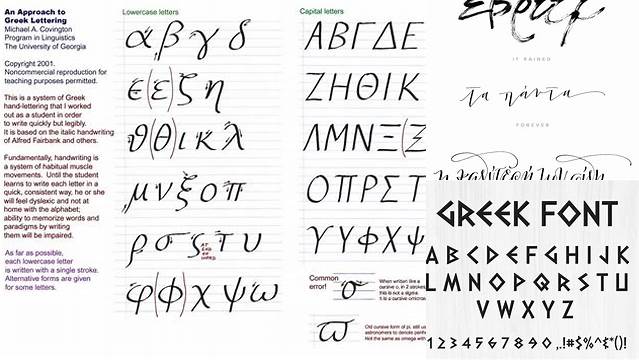
Free Greek Handwriting Fonts: Your Ultimate Guide
Hey guys! Are you on the hunt for some amazing free Greek handwriting fonts? You've come to the right place! Whether you're a designer, a student, or just someone who loves the beauty of Greek script, finding the perfect font can be a game-changer. In this comprehensive guide, we'll dive deep into the world of free Greek handwriting fonts, exploring everything from where to find them to how to use them effectively. So, grab a coffee, get comfy, and let's get started!
1. Understanding Greek Handwriting Fonts
Before we jump into the specifics, let's take a moment to understand what makes Greek handwriting fonts so special. These fonts aim to replicate the natural flow and unique character of handwritten Greek, adding a personal and authentic touch to your projects. Using Greek handwriting fonts can instantly elevate your designs, making them appear more inviting and relatable. This is especially useful for projects that require a human touch, such as invitations, posters, and branding materials. Remember, the key is to choose a font that not only looks good but also fits the overall tone and message of your project.
2. Why Choose Free Greek Handwriting Fonts?
Okay, let's be real – free stuff is awesome! But beyond the price tag, there are many reasons to opt for free Greek handwriting fonts. Many talented designers generously offer their creations for free, allowing you to access high-quality fonts without breaking the bank. This is fantastic news, especially if you're on a tight budget or just starting out. Plus, the variety of free fonts available is truly impressive. You can find everything from elegant and formal scripts to playful and casual styles, ensuring there's something for every project. Just remember to always check the license to make sure the font can be used for your intended purpose, whether it's for personal or commercial use.
4. Best Free Greek Handwriting Fonts for 2024
Now for the fun part! Let's dive into some specific fonts that are totally rocking the free Greek handwriting font scene in 2024. I've scoured the internet and handpicked a few standouts that I think you'll love. We'll explore fonts that range from elegant and formal to casual and quirky, so you can find the perfect fit for your project. Each font has its own unique personality and flair, so get ready to be inspired!
7. Installing Greek Fonts on macOS
Installing fonts on macOS is just as straightforward as on Windows. Simply double-click the font file, and Font Book will open. Click the "Install Font" button, and the font will be installed and ready to use. Another method is to drag the font file into the "Fonts" folder in your Library. To access the Library folder, you may need to hold down the Option key while clicking the "Go" menu in Finder.
8. Using Greek Fonts in Microsoft Word
Using your new Greek handwriting font in Microsoft Word is super simple. Open Word, select the text you want to format, and then choose your font from the font dropdown menu. If you don't see the Greek characters, make sure you have the Greek keyboard layout enabled in your operating system settings. You can usually add a new keyboard layout in the "Language" or "Keyboard" settings of your computer.
9. Using Greek Fonts in Adobe Photoshop
For all you design wizards out there, using Greek fonts in Adobe Photoshop is a must-know skill. Select the Type tool, click on your canvas, and start typing. Then, select the text and choose your Greek font from the font dropdown menu. Photoshop also allows you to adjust the font size, spacing, and other attributes to get the perfect look for your design.
10. Tips for Pairing Greek Fonts with Other Fonts
Font pairing is an art, guys! Combining Greek handwriting fonts with other fonts can create a visually stunning effect, but it's important to do it right. A good rule of thumb is to pair a handwriting font with a simpler, more legible font for body text. This ensures that your design is both beautiful and easy to read. Consider pairing a bold Greek handwriting font with a clean sans-serif font or an elegant serif font. Experiment with different combinations to find what works best for your project.
11. Common Mistakes When Using Greek Handwriting Fonts
We all make mistakes, but knowing the common pitfalls can help you avoid them. One common mistake is using too many handwriting fonts in a single design. This can create a cluttered and confusing look. Another mistake is using a font that is too difficult to read. Remember, readability is key, especially for body text. Also, make sure the font you choose fits the overall tone and message of your project.
12. The History of Greek Script
Let's take a quick historical detour, shall we? Understanding the history of Greek script can give you a deeper appreciation for these fonts. The Greek alphabet is one of the oldest alphabets still in use today, with its roots tracing back to ancient Phoenician script. Over centuries, the Greek alphabet evolved into the forms we recognize today. Knowing this rich history can add depth and authenticity to your designs.
13. Different Styles of Greek Handwriting
Just like English handwriting, Greek handwriting comes in various styles. You'll find everything from formal calligraphic styles to casual and messy scripts. Understanding these different styles can help you choose the perfect font for your project. For instance, a formal script might be ideal for wedding invitations, while a casual script could be perfect for a blog header.
14. How to Create Your Own Greek Handwriting Font
Feeling ambitious? Creating your own Greek handwriting font can be a super rewarding project. You'll need specialized font creation software, such as FontLab Studio or Glyphs. The process involves drawing each letter, number, and symbol, and then encoding them into a font file. It's a time-consuming process, but the result is a unique and personalized font that is all your own.
15. The Importance of Readability in Handwriting Fonts
I can't stress this enough: readability is crucial! Even the most beautiful handwriting font is useless if it's too difficult to read. When choosing a font, make sure the letters are clear and distinct, and the spacing is adequate. Test the font in different sizes and contexts to ensure it's legible. After all, the goal is to communicate your message effectively.
16. Using Greek Handwriting Fonts for Logos
Greek handwriting fonts can add a touch of elegance and personality to your logos. However, logo design requires careful consideration. Choose a font that is not only visually appealing but also scalable and legible in various sizes. A bold and distinctive handwriting font can make your logo stand out, but make sure it aligns with your brand identity.
17. Greek Handwriting Fonts for Social Media Graphics
Social media is a visual medium, so choosing the right fonts is essential for creating eye-catching graphics. Greek handwriting fonts can add a unique flair to your social media posts and stories. Use them for headlines, captions, or even as design elements in your graphics. Just remember to maintain consistency and use fonts that are easy to read on small screens.
18. Best Practices for Using Greek Fonts in Web Design
When using Greek fonts in web design, consider factors such as page load speed and cross-browser compatibility. Web fonts can sometimes slow down your site if they are not optimized properly. Use a font format like WOFF or WOFF2 for better performance. Also, ensure that your chosen font renders correctly in different browsers and devices.
19. Exploring Calligraphy-Inspired Greek Fonts
Calligraphy-inspired Greek fonts can add a touch of sophistication and elegance to your designs. These fonts often feature flowing strokes and ornate details, making them ideal for formal invitations, certificates, and other special occasions. Look for fonts that mimic the look of traditional Greek calligraphy for an authentic touch.
20. Casual and Playful Greek Handwriting Fonts
If you're looking for something more relaxed and fun, casual Greek handwriting fonts are the way to go. These fonts often have a more informal and handwritten feel, making them perfect for blog headers, social media graphics, and other projects where you want to convey a friendly and approachable vibe. Choose fonts with rounded letterforms and a natural, uneven stroke.
21. Using Greek Fonts to Add Authenticity to Historical Projects
If you're working on a historical project, using Greek fonts can add a layer of authenticity and credibility. Choose fonts that accurately reflect the time period and style you are trying to represent. Research the historical context of Greek handwriting and select fonts that align with that period.
22. The Psychology of Fonts: Choosing the Right Mood
Fonts have a powerful psychological impact, guys. They can evoke different emotions and create different moods. When choosing a Greek handwriting font, consider the message you want to convey and the emotions you want to evoke. A formal script might convey elegance and sophistication, while a casual script might convey friendliness and warmth.
23. How to Test Your Greek Font for Legibility
Testing your font for legibility is a crucial step in the design process. Print out a sample of your text in different sizes and contexts. Ask others to read it and provide feedback. Pay attention to letter spacing, kerning, and overall readability. Make adjustments as needed to ensure your font is easy to read.
24. Advanced Tips for Font Customization
Want to take your font game to the next level? Advanced font customization techniques can help you create a truly unique and personalized look. Experiment with different weights, styles, and effects. Use software like FontLab Studio or Glyphs to adjust the letterforms and create custom variations of your chosen font.
25. Resources for Learning More About Typography
If you're serious about typography, there are tons of amazing resources out there to help you learn more. Books, online courses, and workshops can provide you with in-depth knowledge about font design, usage, and history. Websites like Typewolf and I Love Typography are also great sources of inspiration and information.
26. The Future of Greek Handwriting Fonts
The world of fonts is constantly evolving, and Greek handwriting fonts are no exception. As technology advances, we can expect to see even more innovative and creative font designs. AI and machine learning may play a role in font creation in the future, allowing for more personalized and dynamic font experiences. The possibilities are endless!
27. Maintaining Consistency with Greek Fonts Across Platforms
Ensuring consistency with Greek fonts across different platforms and devices can be a challenge. Different operating systems and browsers may render fonts differently. Use web fonts for online projects to ensure consistent rendering. Test your designs on various devices to identify and address any issues.
28. The Impact of Culture on Font Design
Culture plays a significant role in font design, guys. Greek fonts reflect the rich history and cultural heritage of Greece. Understanding the cultural context of a font can help you use it more effectively. Consider the cultural implications of your font choice when designing for international audiences.
29. How to Stay Updated on New Font Releases
Want to stay in the loop about the latest font releases? Subscribe to font newsletters, follow font foundries on social media, and check font blogs regularly. This will help you discover new and exciting Greek handwriting fonts as soon as they are released.
30. Conclusion: Unleashing the Power of Free Greek Handwriting Fonts